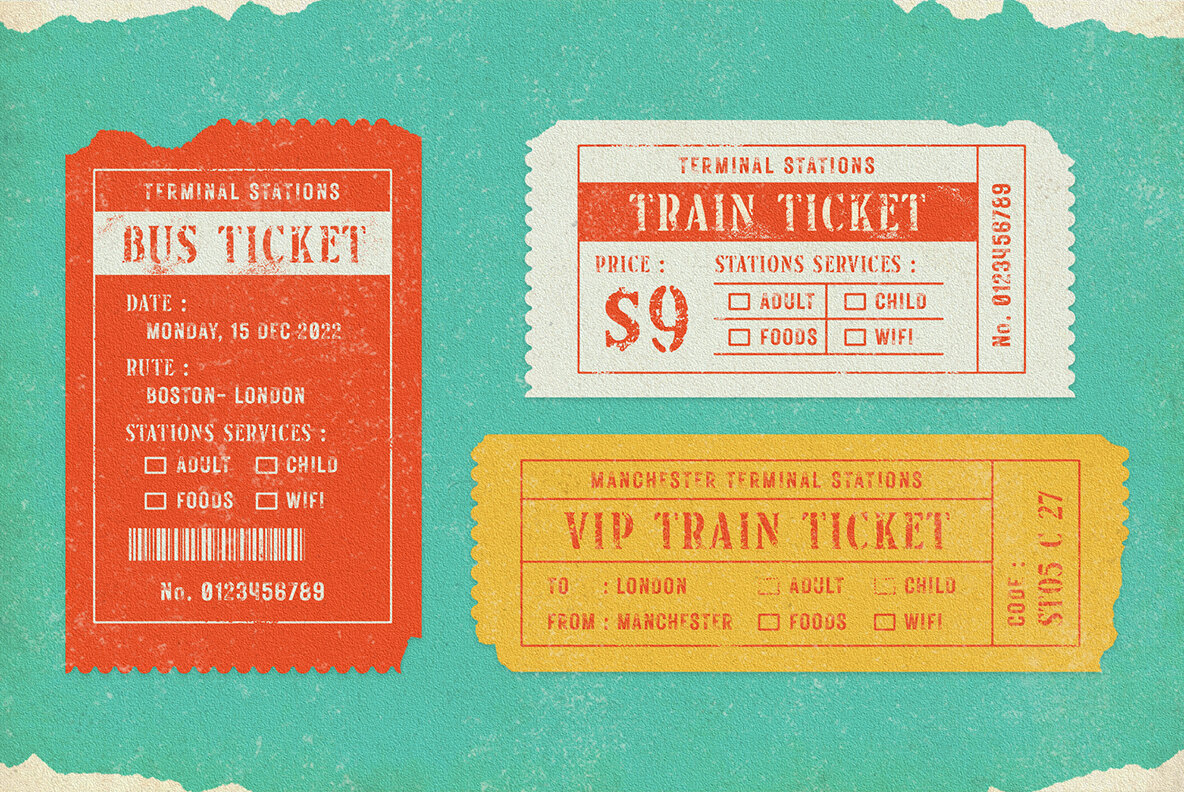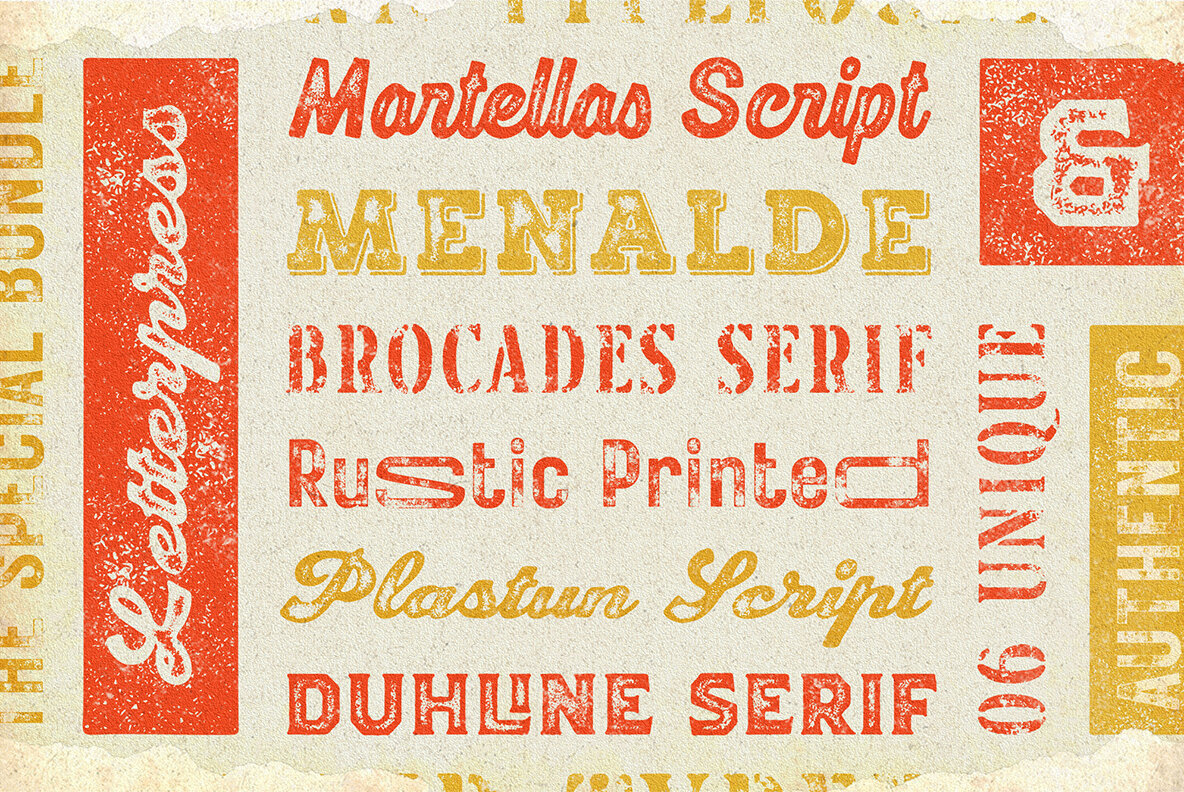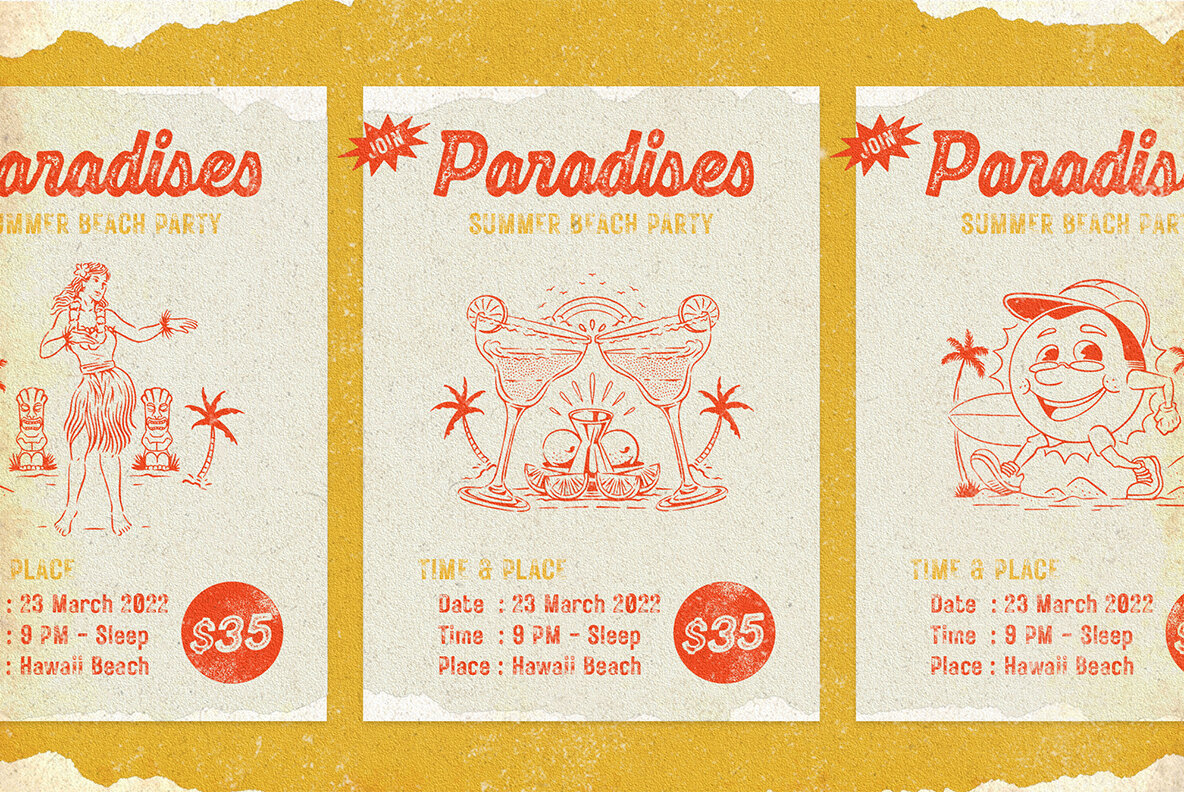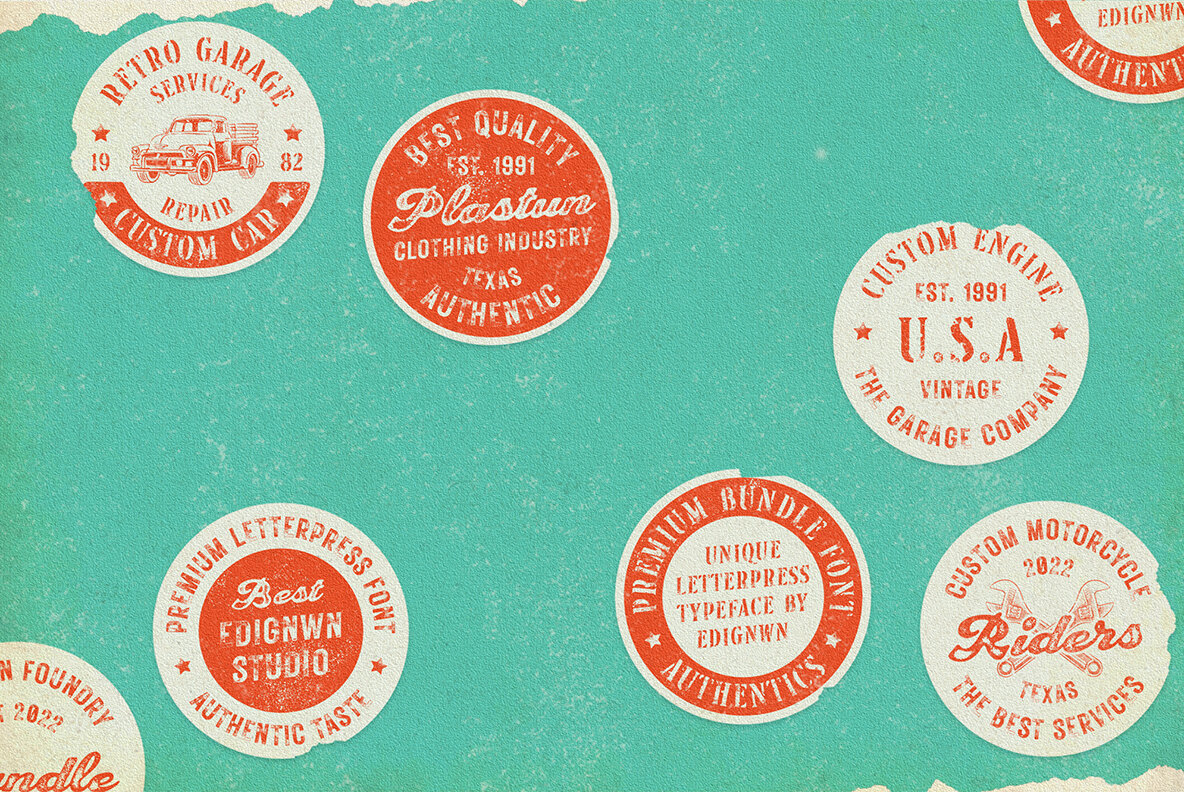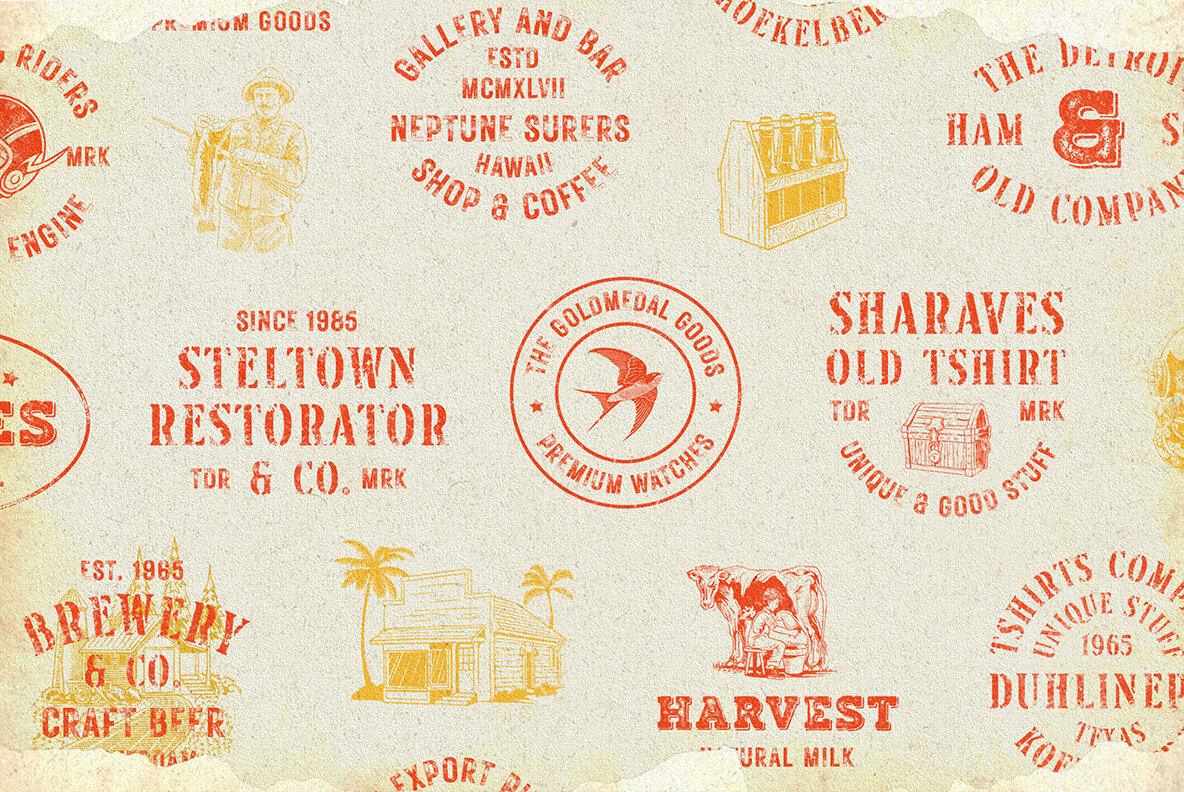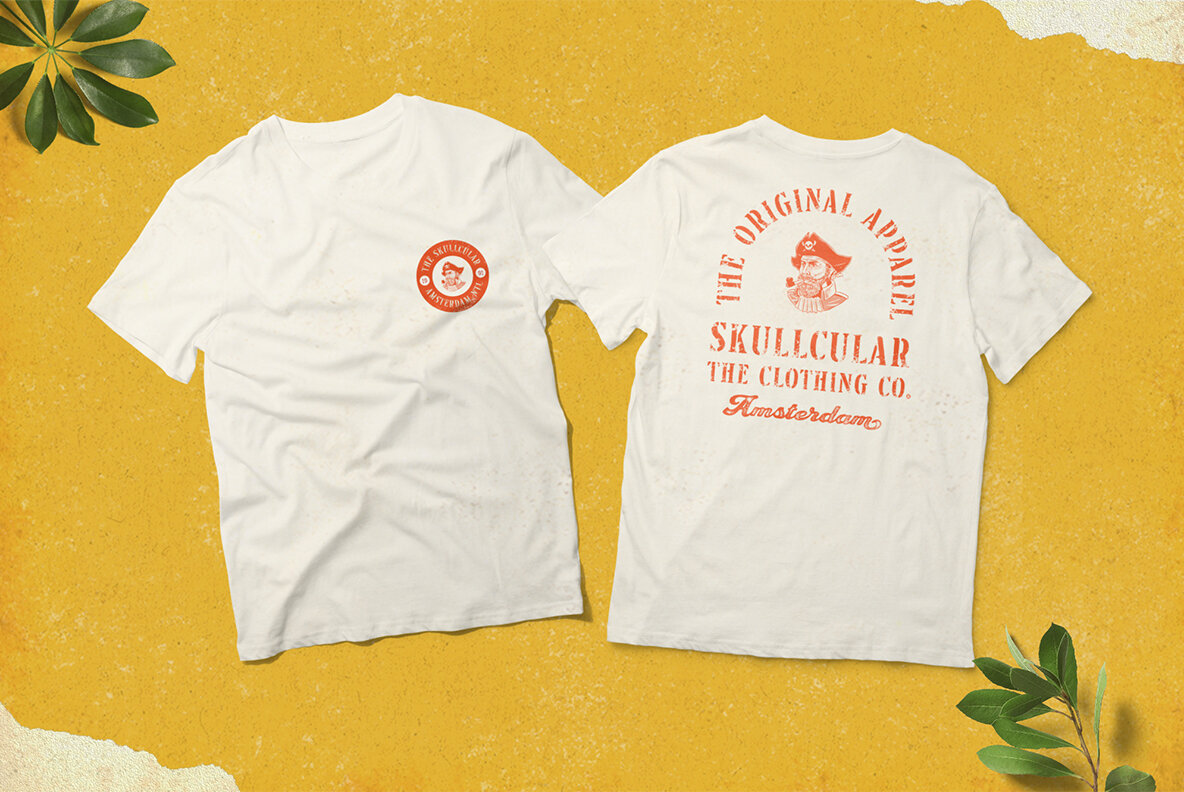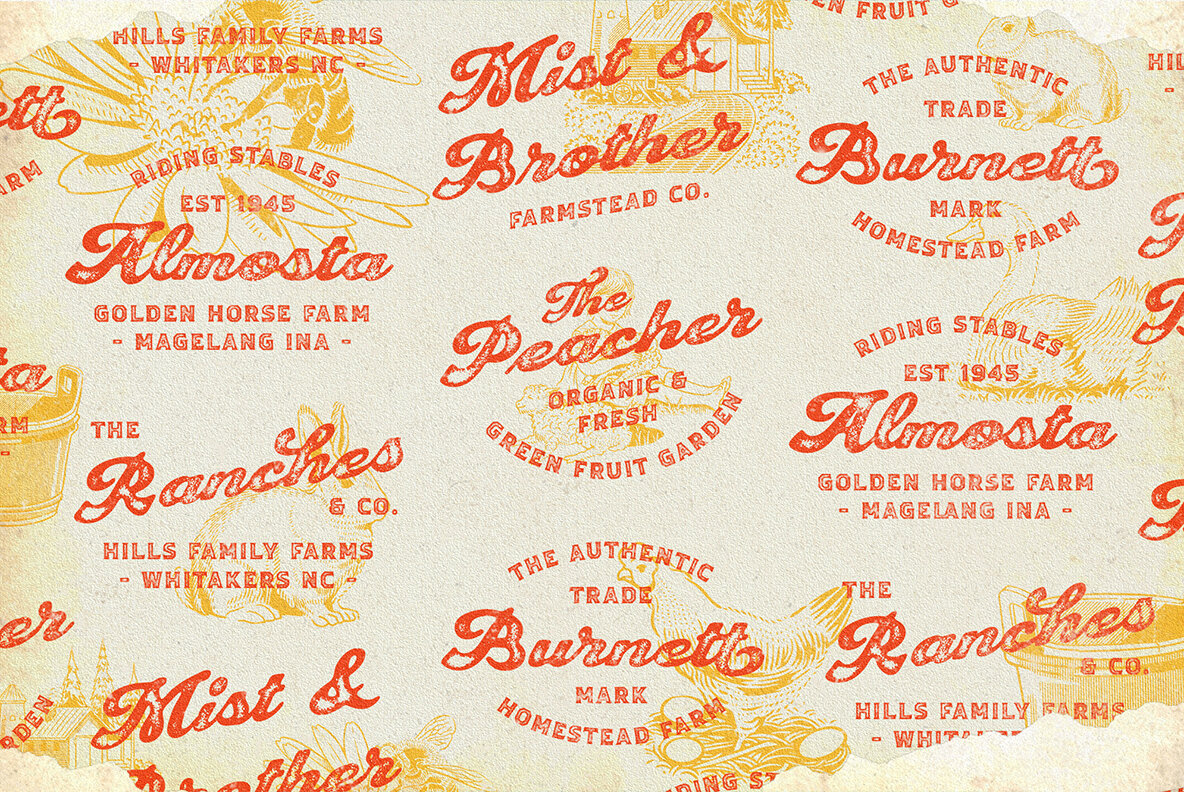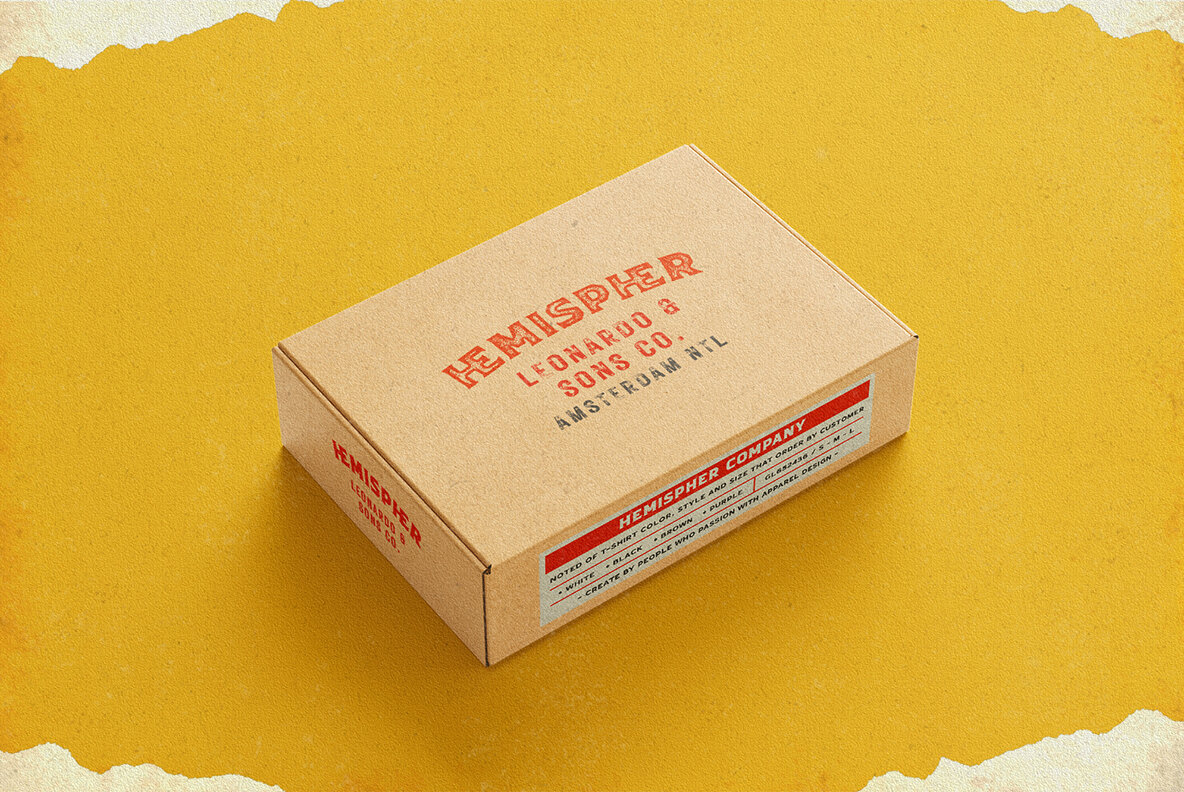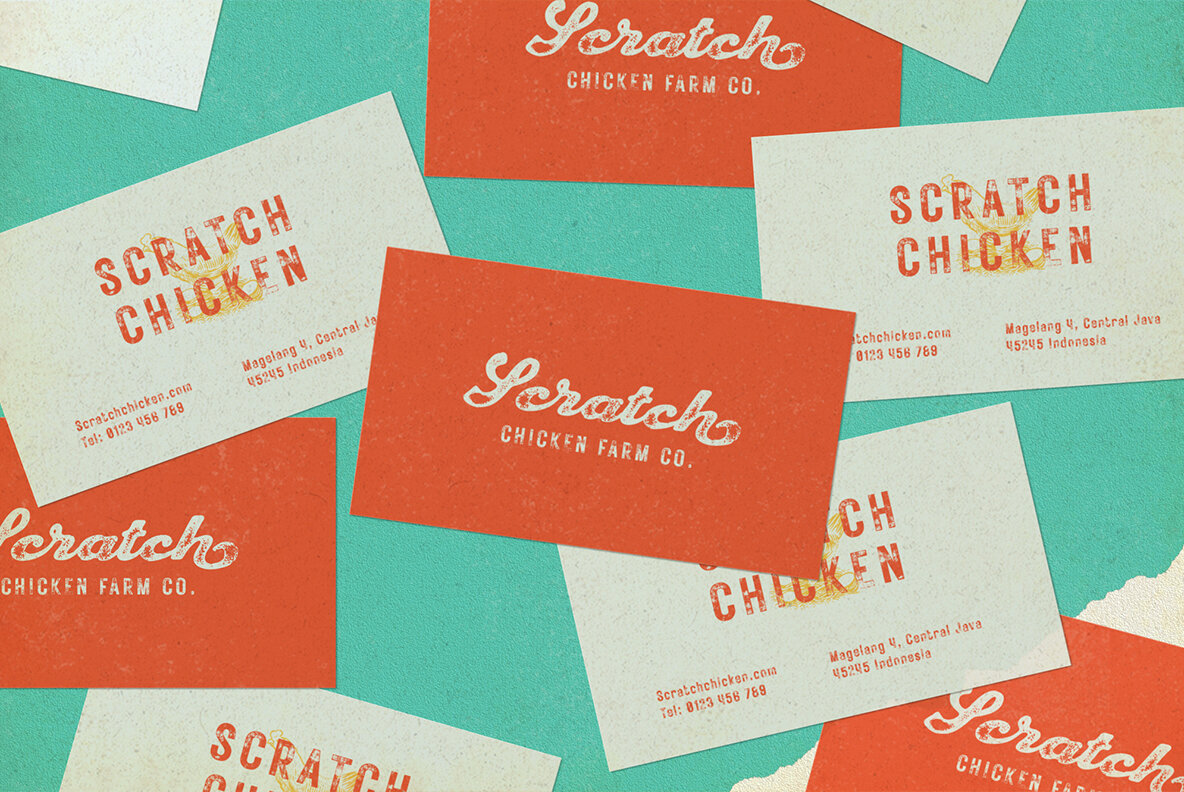
Letterpress Vol 1.0 Font
Brocades Serif Stamp
Duhline Texture
Martellas Stamp
Menalde Textured
Plastun Script Textured
PlastunScript Textured
Rustic Printed Stamp
The Letterpress Font Bundle Vol 1.0 is selected fonts of our vintage font collections. This bundle contains script, sans serif and serif font. This pack comes with an authentic letterpress style typeface. Some fonts come with rich alternate and ligature features.
The bundle matches apply in some designs such as the logo, poster, label, badge, packaging, t-shirt, branding, quotes and more custom design.
Letterpress Font Bundle Vol 1.0 features:
- 6 unique letterpress styles typefaces
- Uppercase, lowercase, numeral, symbol, punctuation
- All-caps, numeral, symbol and punctuation
- Alternates and Ligatures